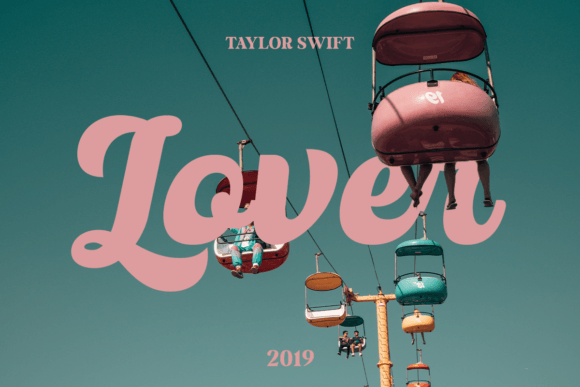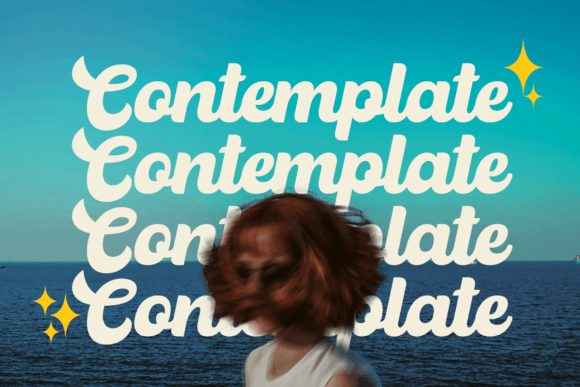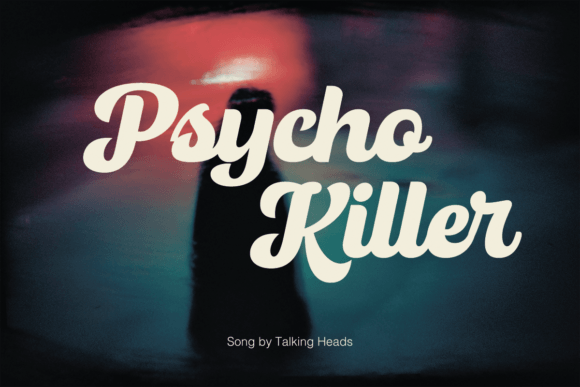
Introduction to Saundrayam Font
As designers, we’ve all been there – staring at a blank canvas, waiting for the perfect font to bring our creative project to life. The right typeface can elevate a design from bland to grand, and today, we’re excited to introduce you to a retro script font that’s sure to spark your imagination: the Saundrayam Font.
With its elegant, handwritten feel, the Saundrayam Font is a design resource that’s perfect for a wide range of applications, from magazine titles and posters to logos, T-Shirts, and business cards. Whether you’re looking for a high-quality font to add a touch of sophistication to your designs or a free download to spice up your social media posts, the Saundrayam Font is a valuable asset for any designer.
Key Features of Saundrayam Font
- High-quality design resource for creative projects: Saundrayam Font is a premium font designed to elevate your designs and bring a touch of elegance to your work.
- Unique design style: The font features a unique design style that is both modern and sophisticated, making it perfect for designers who want to add a touch of elegance to their work.
Honest Review: Saundrayam Font
As a designer, I’m always on the lookout for high-quality design resources to elevate my creative projects. Recently, I came across the Saundrayam Font, and I must say, it’s a gem!
- ✨ High-quality typography with intricate details that add a touch of elegance to any design.
- ⚠️ Limited character set, which may not be suitable for projects requiring a wide range of characters.
Overall, I’m impressed with the Saundrayam Font and would definitely recommend it to designers looking for a high-quality, unique font for their creative projects.
Common Use Cases for the Saundrayam Font
The Saundrayam Font is ideal for a range of creative projects, including logos, business cards, and brochures. Its high-quality design and transparent background make it a popular choice among designers.